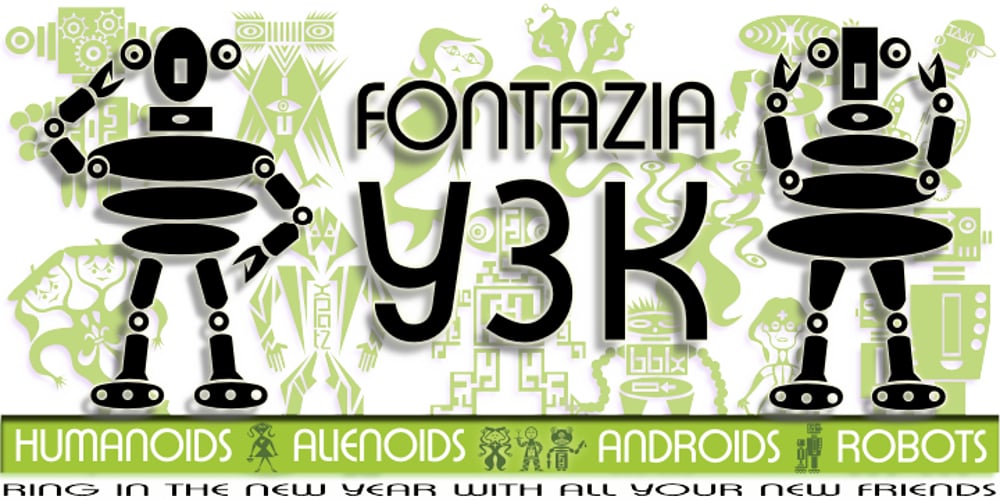
Fontazia Y3K Font Family was designed by Denise Koehler and published by Deniart Systems. Fontazia Y3K contains 1 styles and family package options. Invite all your weird and wonderful friends to your next party! Fontazia Y3K is a unique typeface featuring 72 hand-drawn futuristic creatures! Whether you’re looking for humanoids, alienoids, androids or simple robots, these unusual characters are sure to bring all your designs to life (…even your postcards, photos, or whatever – we think special guests should always be welcome!).